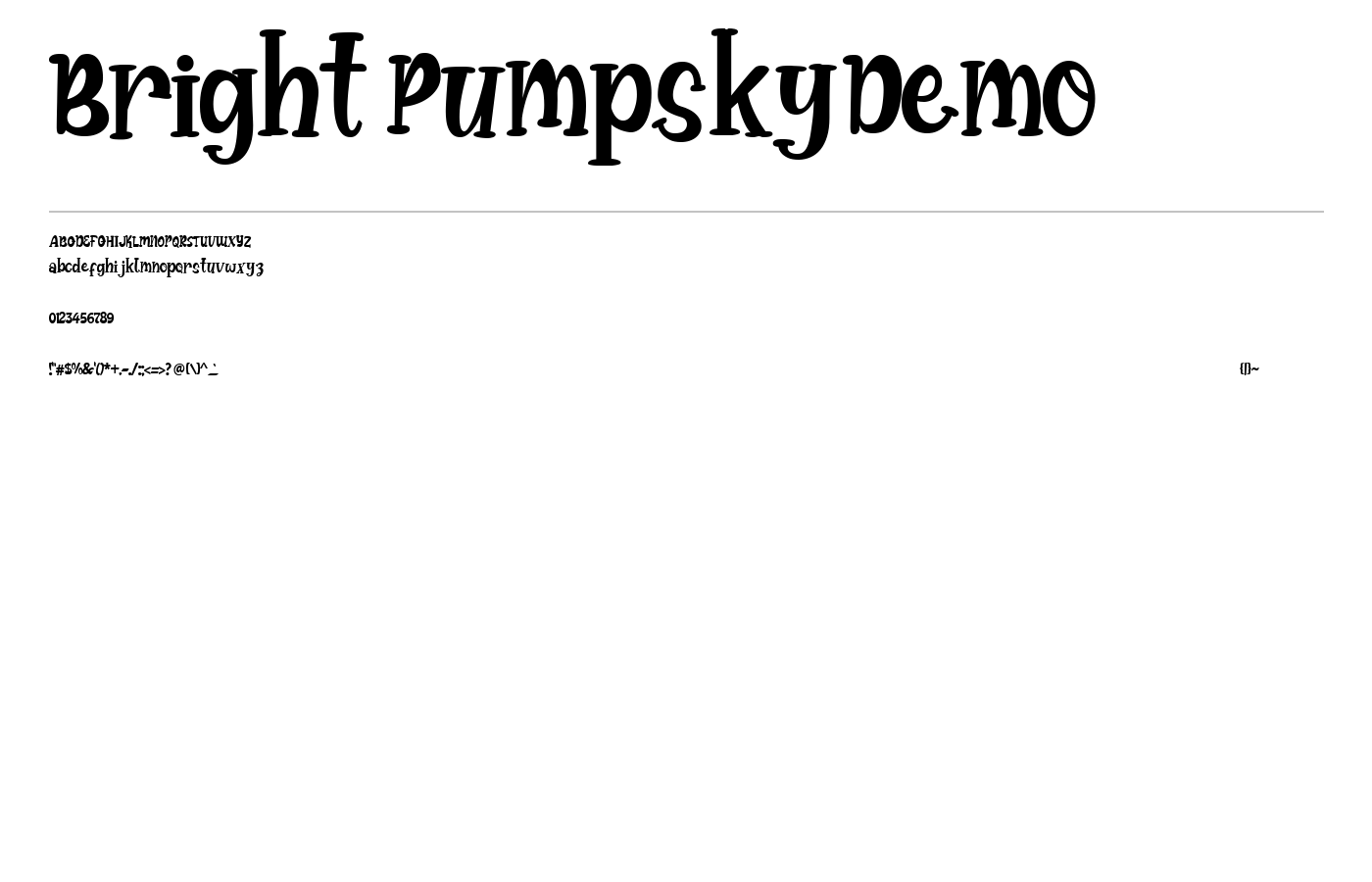
Bright PumpskyDemo is a whimsical, playful serif font with a lively, hand-crafted feel that combines thick and thin strokes with quirky, rounded serifs and irregular shapes. Its bold weight and distinctive character shapes make it perfect for fun, creative projects like children's books, invitations, or branding that seeks a casual and friendly tone. This font works well in display settings where personality and warmth are desired, adding a unique charm to headlines and logos.
Bright PumpskyDemo Font
About Bright PumpskyDemo Font